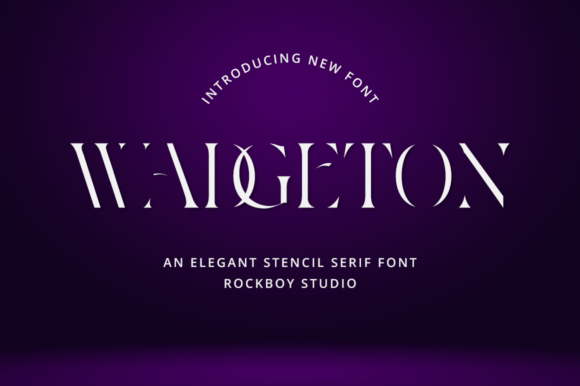
Unleash the captivating charm of Wadgeton, the exquisite serif font designed to elevate your fashion blogs to unparalleled heights. Crafted by the masterful hands at RockboyStudio, Wadgeton embodies elegance and sophistication, promising to transform your written words into a visual feast.
Indulge in its timeless style, where each letter dances gracefully across the screen, leaving a trail of sophistication in its wake. With Wadgeton, your fashion musings will transcend the ordinary and blossom into captivating masterpieces.
Envision your blog posts adorned with Wadgeton's timeless grace. Its crisp lines and flowing curves will effortlessly convey the essence of your fashion philosophy, drawing readers into your world of style and inspiration.
Beyond fashion blogs, Wadgeton's allure knows no bounds. Its versatility extends to a myriad of creative projects, from stunning invitations to captivating social media posts. Whether you seek to craft a timeless logo or breathe life into your latest design endeavor, Wadgeton is your steadfast companion.
Don't settle for ordinary fonts. Embrace the extraordinary with Wadgeton, the font that will ignite your creativity and leave an unforgettable impression on every reader. Immerse yourself in its timeless elegance and watch as your words transform into works of art. Download Wadgeton today and embark on a journey of typographic brilliance!